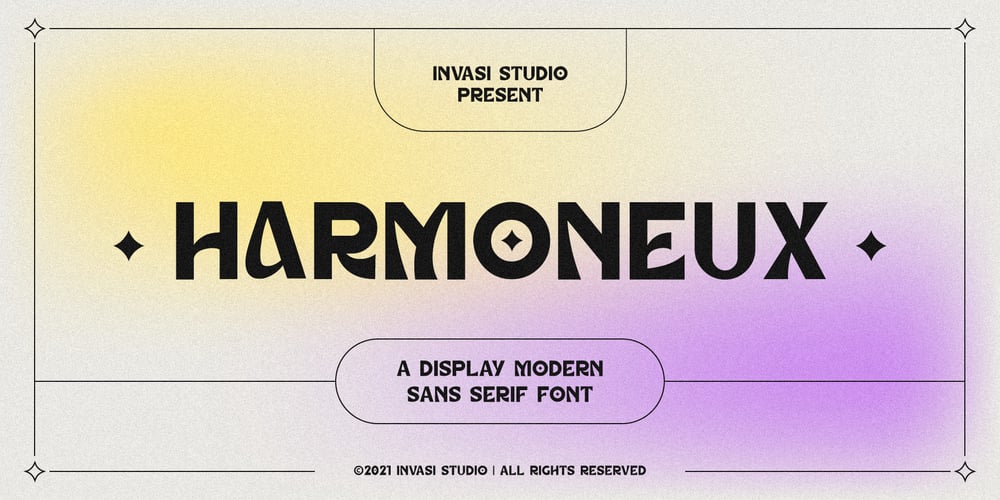
Harmoneux Font Family was designed by Gha Arizal and published by Invasi Studio. Harmoneux contains 1 styles and family package options. Harmoneux is a modern and cool display semi serif font. No matter the topic, this font will be an incredible asset to your fonts’ library, as it has the potential to elevate any creation.This font is perfect for headings, flyers, greeting cards, product packaging, book cover, printed quotes, logotype, apparel design, album covers, website.This font is PUA encoded which means you can access all of the glyphs and swashes with ease!